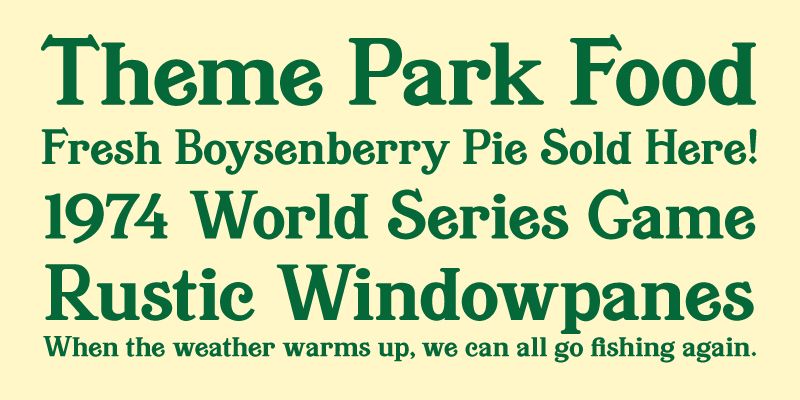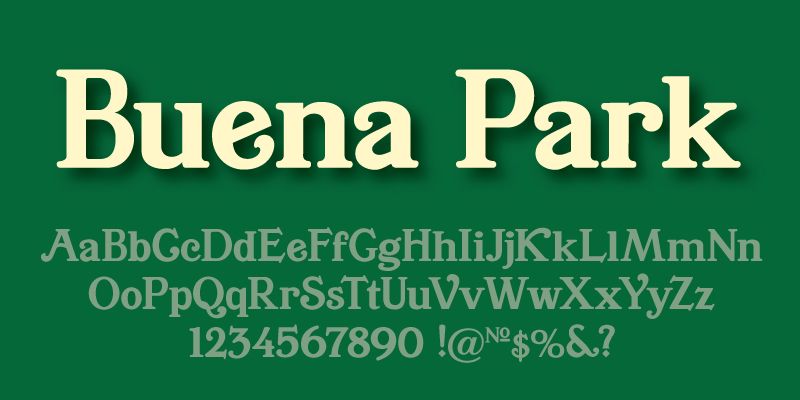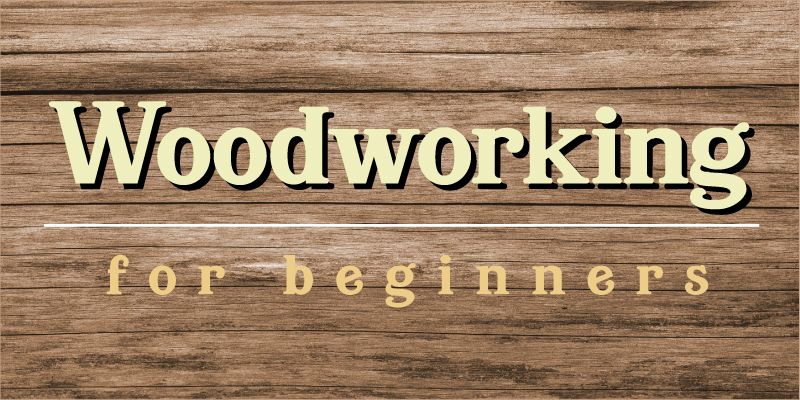
Buena Park is a warm and friendly serif font with a subtle art nouveau feel. While it could be classified as a Clarendon style font, Buena Park really sings when used for display type or headlines.